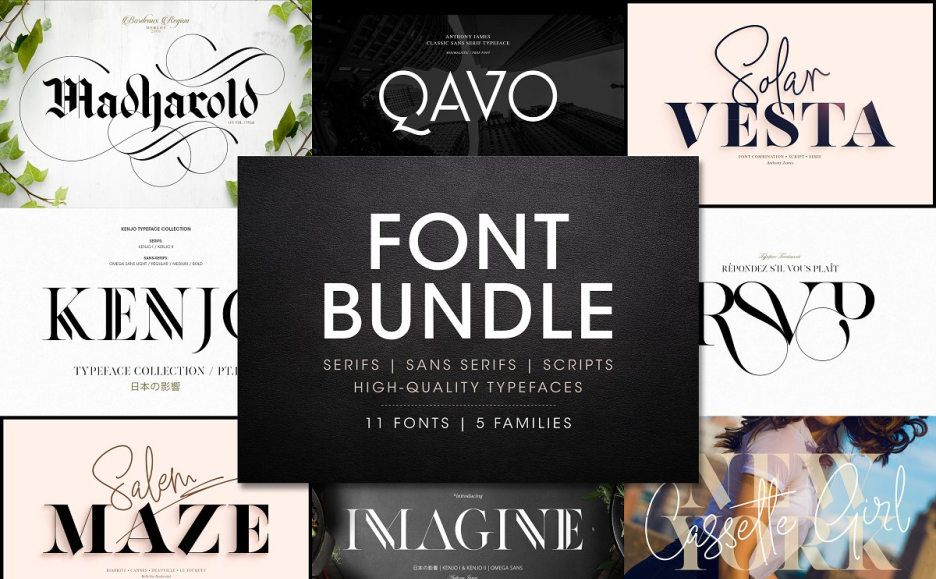
Font Bundle 1
Introducing the Font Bundle 1, a meticulously curated collection of versatile typefaces designed to elevate your creative projects. This bundle includes a variety of font styles and weights, ensuring you have the perfect typography for any application.
• Multiple font styles including serif, sans-serif, and script.
• Various weights ranging from light to bold.
• 10 unique fonts, each with its own personality.
• Comprehensive character sets for multilingual support.
Each font in this bundle is crafted with precision, ensuring readability and aesthetic appeal. Perfect for branding, logos, web design, print materials, and user interfaces.
• Utilize different weights for hierarchy in your designs.
• Combine styles for a unique visual impact.